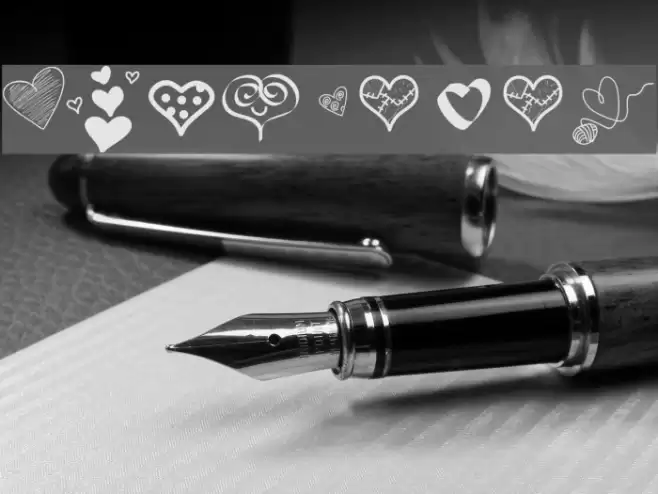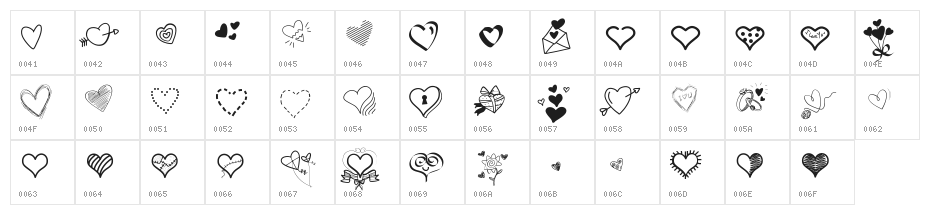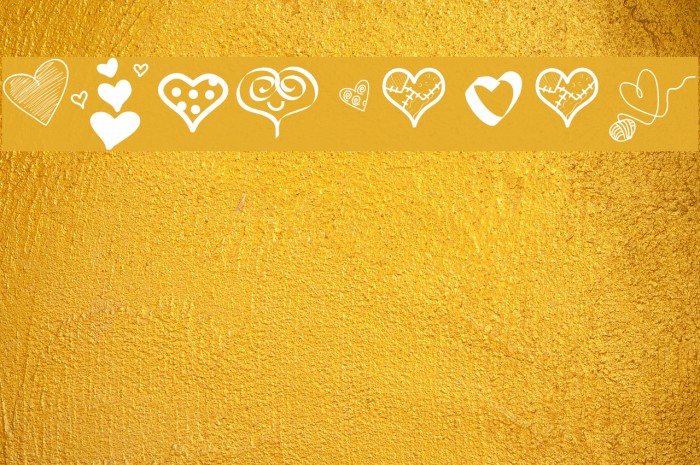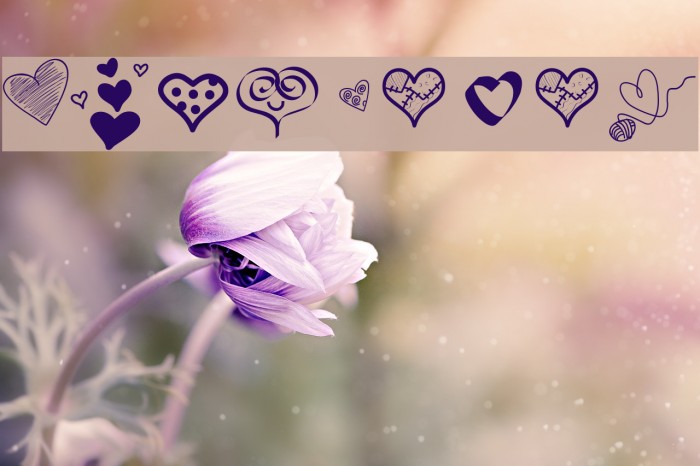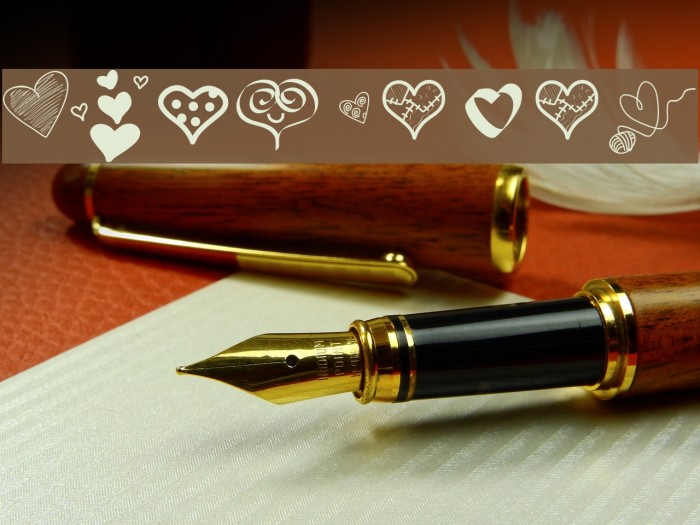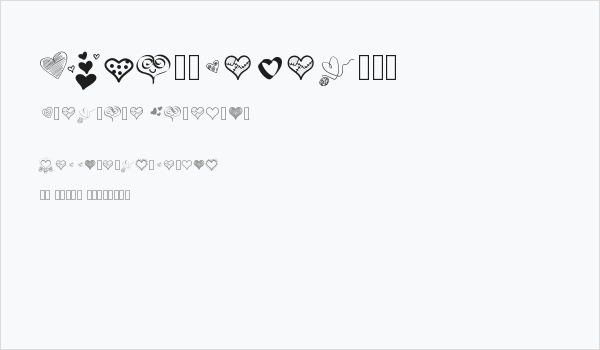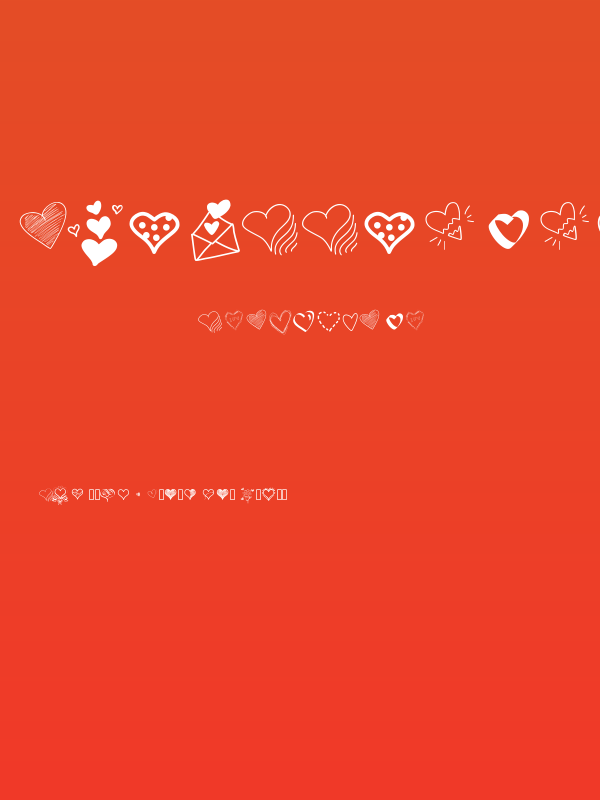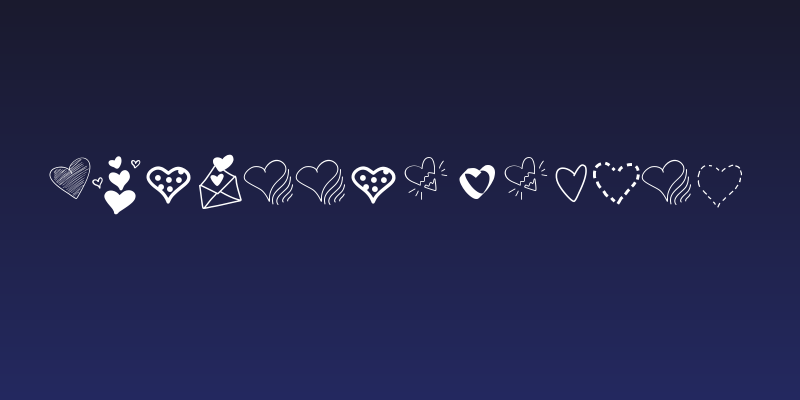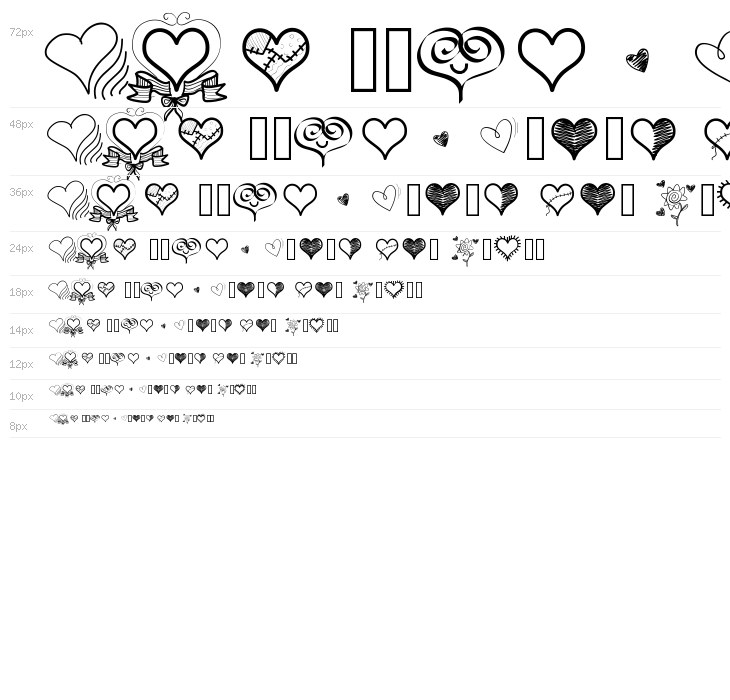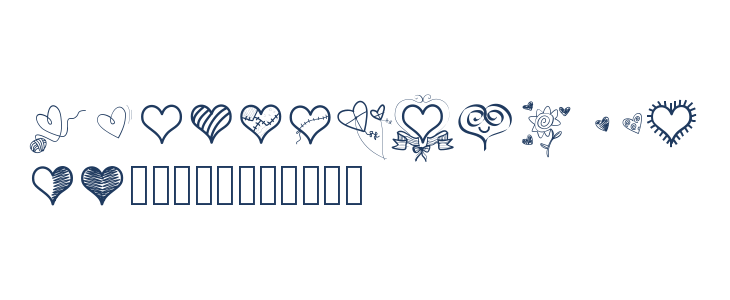
PWLittleHearts Font
PWLittleHearts Description
This collection features a variety of heart-themed decorative elements, each with unique designs and embellishments. The hearts are creatively styled with patterns, symbols, and motifs such as arrows, keys, and flowers, offering a playful and romantic aesthetic. The designs range from simple outlines to more intricate compositions, incorporating elements like envelopes, locks, and wings. These decorative hearts are ideal for adding a touch of whimsy and love to any project, making them perfect for Valentine's Day themes, wedding invitations, or romantic greeting cards.
A whimsical collection of heart-themed decorative elements with varied designs from Uncategorized fonts.
- Proposed Projects: Ideal for Valentine's Day cards, wedding invitations, romantic decorations, and love-themed crafts.
- Use Case: Decorative elements for cards and invitations.